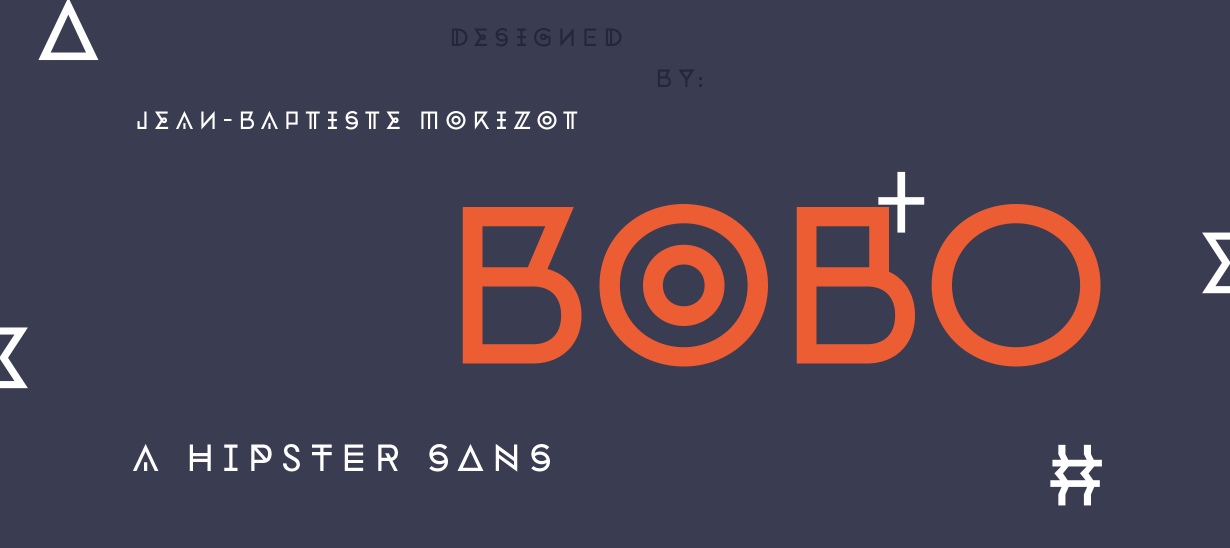
Bobo Font
Bobo Font is perfect for playful children's brands, friendly pet services, whimsical toy companies, cheerful family entertainment, casual neighborhood businesses, and approachable community organizations. Its lovable character makes it ideal for children's bookstores, friendly veterinary clinics, playful daycare centers, casual ice cream shops, neighborhood cafes, and any project requiring endearing charm with approachable friendliness and lovable personality appeal.
This font is exciting because it embodies the innocent joy and unconditional warmth that makes everyone smile while delivering exceptional functionality for brands seeking to create immediate emotional connections and friendly accessibility. The adorably crafted letterforms radiate genuine warmth and playful charm, creating typography that feels like a friendly hug and instantly puts audiences at ease with its approachable, lovable personality.
The Bobo Font family typically includes Light, Regular, Medium, and Bold weights with playful alternates, friendly ligatures, and charming decorative elements that enhance its lovable personality. This comprehensive collection enables family-focused professionals to create welcoming brand systems that maintain genuine warmth while offering flexibility for various community applications requiring both approachable appeal and contemporary family market positioning.